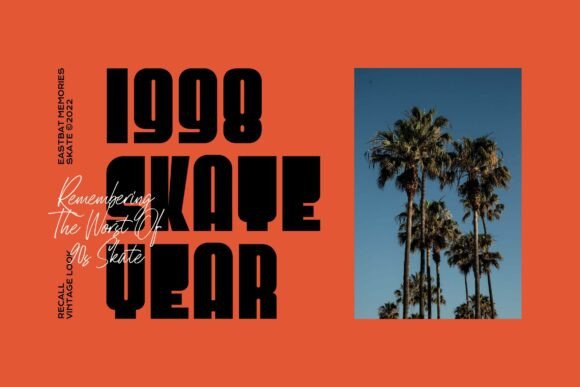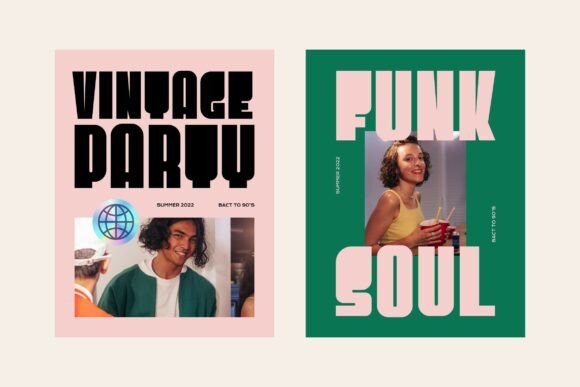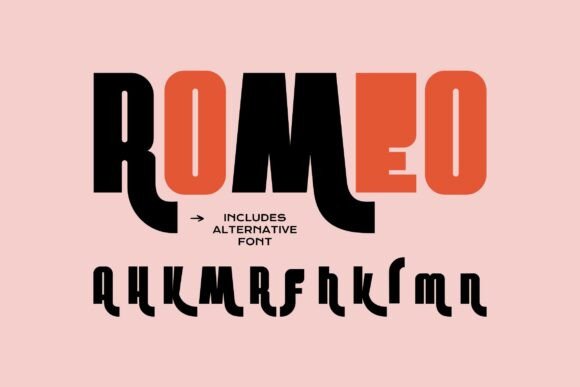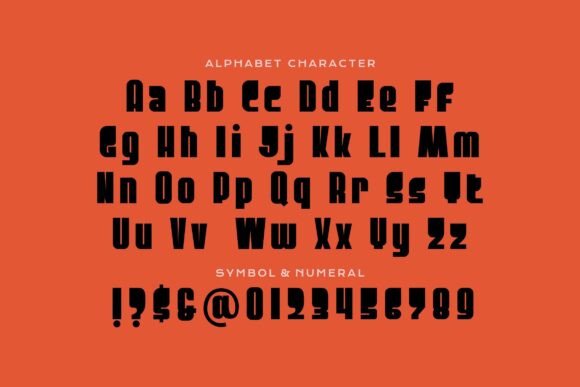
Unlocking the Power of the 90s: An Introduction to Gomien Font
Have you ever been scrolling through your favorite design inspiration boards, only to stumble upon a vintage poster or album cover that instantly transports you back to the radical 90s? The bold, eye-catching graphics of that era continue to captivate designers and creatives today. One font that’s making a comeback with a vengeance is the Gomien Font, a vintage condensed display typeface that screams 90s retro vibes.
As a valuable design resource, the Gomien Font is perfect for designers looking to add a high-quality, nostalgic touch to their creative projects. With its thick, heavy strokes and unique geometric letterforms, this font is sure to make a statement. Whether you’re working on a fashion campaign, a music festival flyer, or a social media graphic, the Gomien Font is an ideal choice for anyone seeking to stand out with a modern yet vintage feel.
Key Features of Gomien Font
- The Gomien Font is a high-quality design resource, ideal for creative projects that require a unique touch.
- This font features a transparent background, allowing for seamless integration with any design element.
- This font family includes multiple styles, offering versatility and flexibility for various design applications.
- Gomien Font has a resolution of 300 DPI, guaranteeing crisp and clear text, even at larger sizes.
- Its unique, hand-drawn design makes Gomien Font a standout choice for designers seeking a creative and eye-catching font.
Honest Review: Gomien Font
I recently had the chance to experiment with the Gomien Font for a creative project, and I must say it’s been an interesting experience. This free download has a lot of potential, but like any design resource, it has its strengths and weaknesses.
- High-quality glyphs: The Gomien Font boasts beautiful, detailed characters that add a touch of elegance to any design.
- Transparent background: This allows for easy compositing and flexibility in design composition.
- Limited language support: Unfortunately, the Gomien Font seems to be limited to a specific set of languages, which may be a drawback for designers working on multilingual projects.
- Lack of bold/italic variations: While the font itself is lovely, it would be great to have more weight options to add visual interest.
Overall, I think the Gomien Font has a lot of potential for designers working on high-end creative projects. However, its limitations may make it less suitable for more complex or large-scale designs. As with any design resource, it’s essential to weigh the pros and cons before deciding whether to use it for your next project.
Tips for Getting the Most Out of Gomien Font
For optimal results, use the Gomien Font in conjunction with other high-quality design resources. Experiment with different font sizes, colors, and styles to find the perfect combination for your creative project. Don’t forget to take advantage of the font’s transparent background to add depth and visual interest to your designs.
The Gomien Font is ideal for a wide range of creative projects, including business cards, brochures, and social media graphics. Its high quality and transparent background make it a great choice for designs that require a professional and modern look.